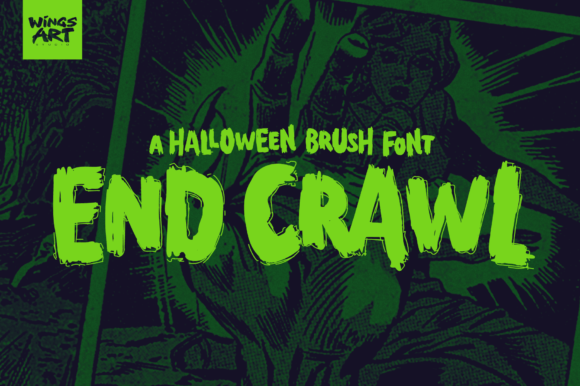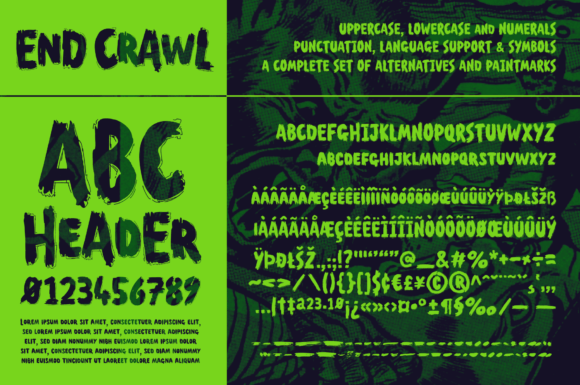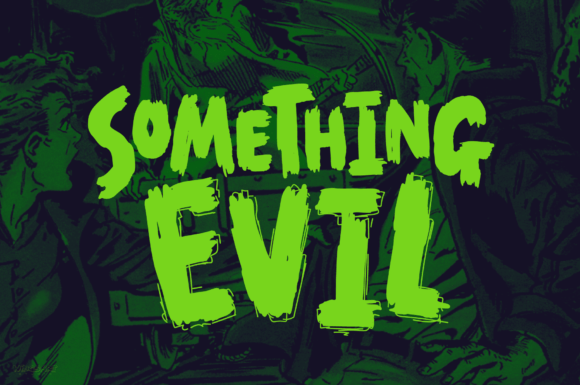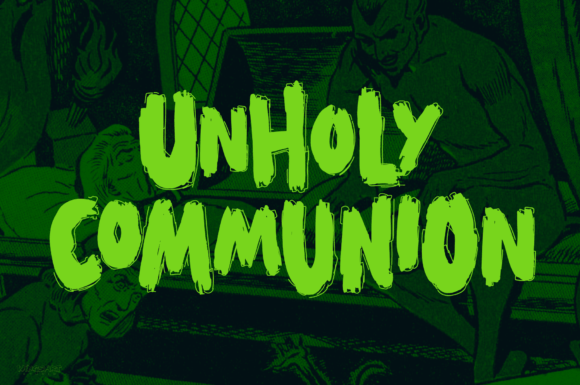
End Crawl Font: Grunge Brush Font for Spooky Halloween Designs
About the End Crawl Font
From logos to headlines, the End Crawl Font is the perfect choice for making a lasting impression. Introducing a new creeping terror this Halloween, End Crawl is a hand-drawn brush font inspired by the gore-soaked horror movies and comic books of the 1970s and 80s. This textured all-caps design evokes a nervous energy that will leave your readers frozen in suspense! With a bold painted look surrounded by an anxious outline, it offers the tools to leave your readers stomach in knots!
End Crawl excels in headline applications, posters, and short, impactful branding elements where its bold, aggressive personality can shine. The textured brush strokes create a visually arresting impact, ideal for horror-themed projects, gritty logos, or vintage-inspired designs. However, its highly stylized nature and all-caps format make it unsuitable for body text or UI elements requiring high readability.
Pairing End Crawl with a clean sans-serif like Montserrat or a more geometric typeface such as Futura would create a strong contrast, allowing the headline to dominate while maintaining visual cohesion. For a slightly softer contrast, consider pairing it with a classic serif like Garamond or a subtly textured slab serif.
The font’s core personality is aggressive and bold, conveying a sense of urgency and dark energy. It’s best suited for projects aiming for a vintage horror, heavy metal, or rebellious aesthetic.
End Crawl Font Usage Examples
End Crawl Font Example